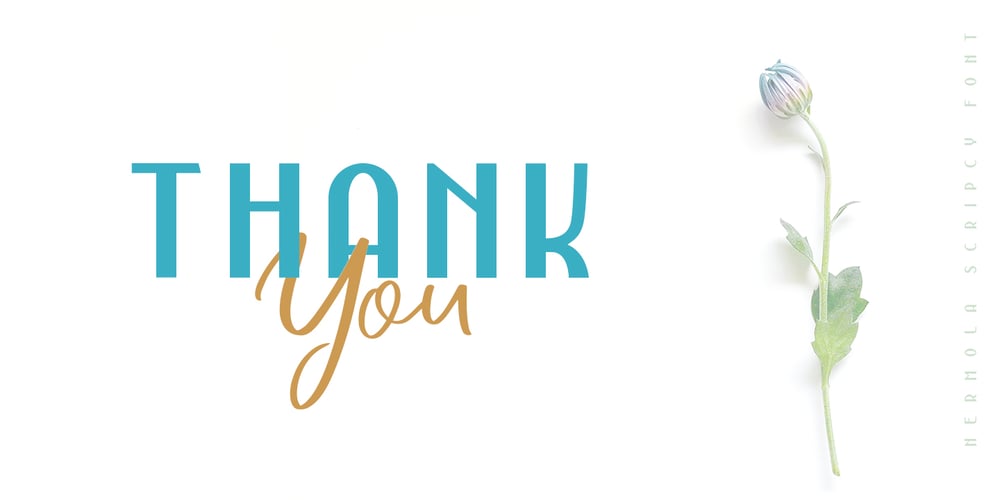
NERMOLA Scripcy Font Font Family was designed by Alit Suarnegara and published by Alit Design. NERMOLA Scripcy Font contains 3 styles and family package options. Introducing NERMOLA Scripcy Font from alitdesign. The rise of typeface duos in the marketplace made us not want to be left behind so we created a pairing of our own. This font duo launch contains both a sans serif and signature script. NERMOLA Scripcy sans serif has characters that are unique, elegant, formal and assertive. It is suitable for the heading or subheading of any text. The uppercase of the sans looks very unique and elegant. The script letters are also unique and natural in character. Additionally, it has several alternatives that can be replaced using OpenType features. NERMOLA Scripcy fonts are the perfect addition to your font collection library. The designs are elegant and romantic and are equally suitable for logotype design and for any phrase, poem, or quote.